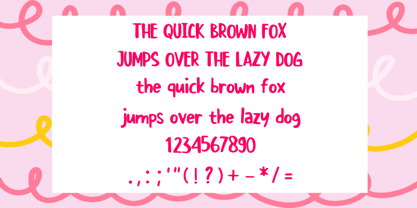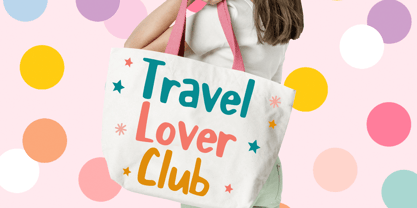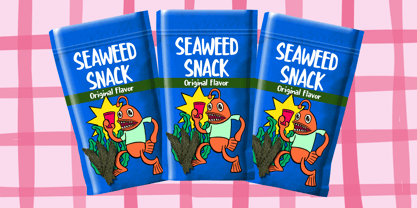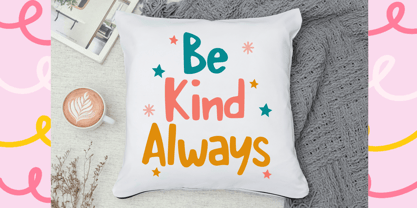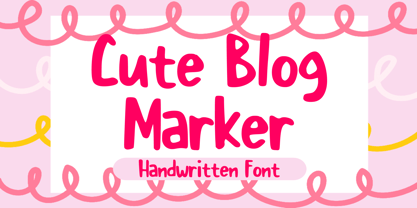
Cute Blog Marker
by Mvmet
The Cute Blog Marker Font Family was designed by Gabriel Valentinus and published by Mvmet. Cute Blog Marker contains 1 styles. More about this family
Cute Blog Marker is a cute and playful comic marker font, suitable for designs that need casual writing looks. It will elevate a wide range of design projects to the highest level. You can use this font for many design ideas such as stickers, t-shirt designs, amazing logo designs, magazine or book covers, comics, cartoon drawings, daily typing, and many more. This font will add a super cool touch to your designs!
Designers: Gabriel Valentinus
Foundry: Mvmet